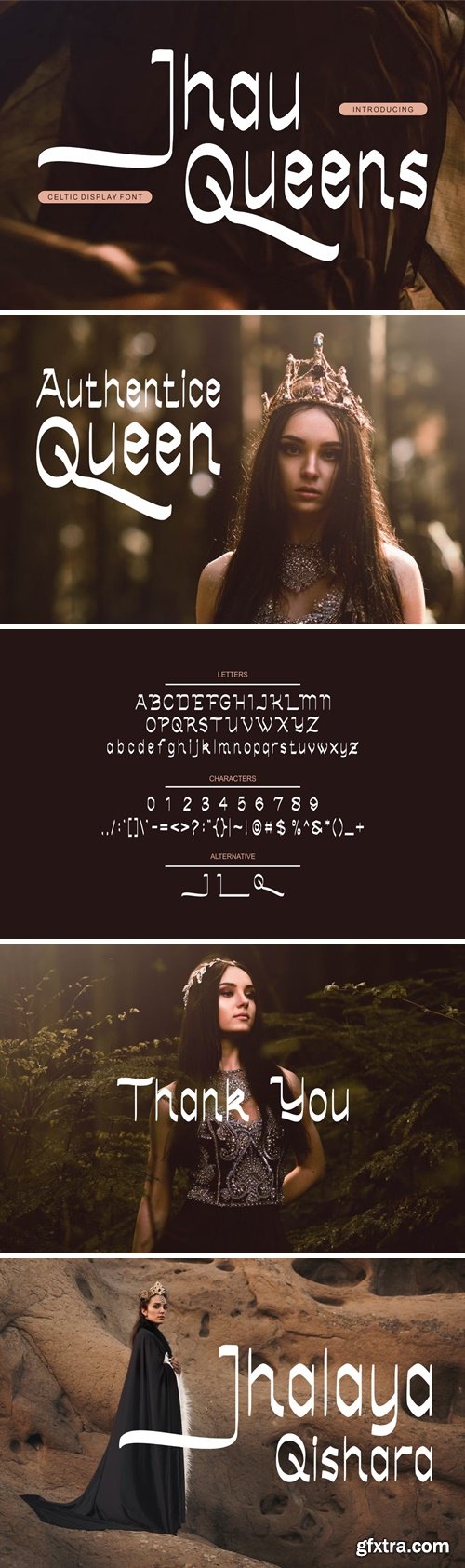
Introducing our new product Jhau Queens Font - Modern Font is a bold and authentic display font. The font is suitable for any branding project like logo, and many more. outstanding in a wide range of contexts.